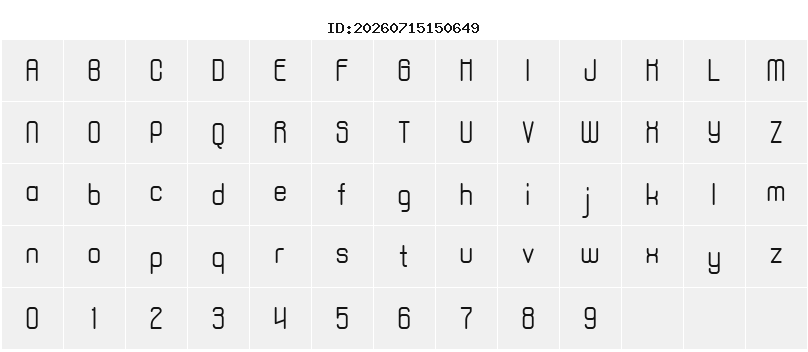
• Font Name: aposiopesis normal
• Designer: dondon nillo
• Manufacturer: rimando nillo jr.
aposiopesis normal.ttf is a modern, elegant sans-serif font designed for ultimate readability and visual harmony. Perfect for branding, headlines, web design, and print materials.